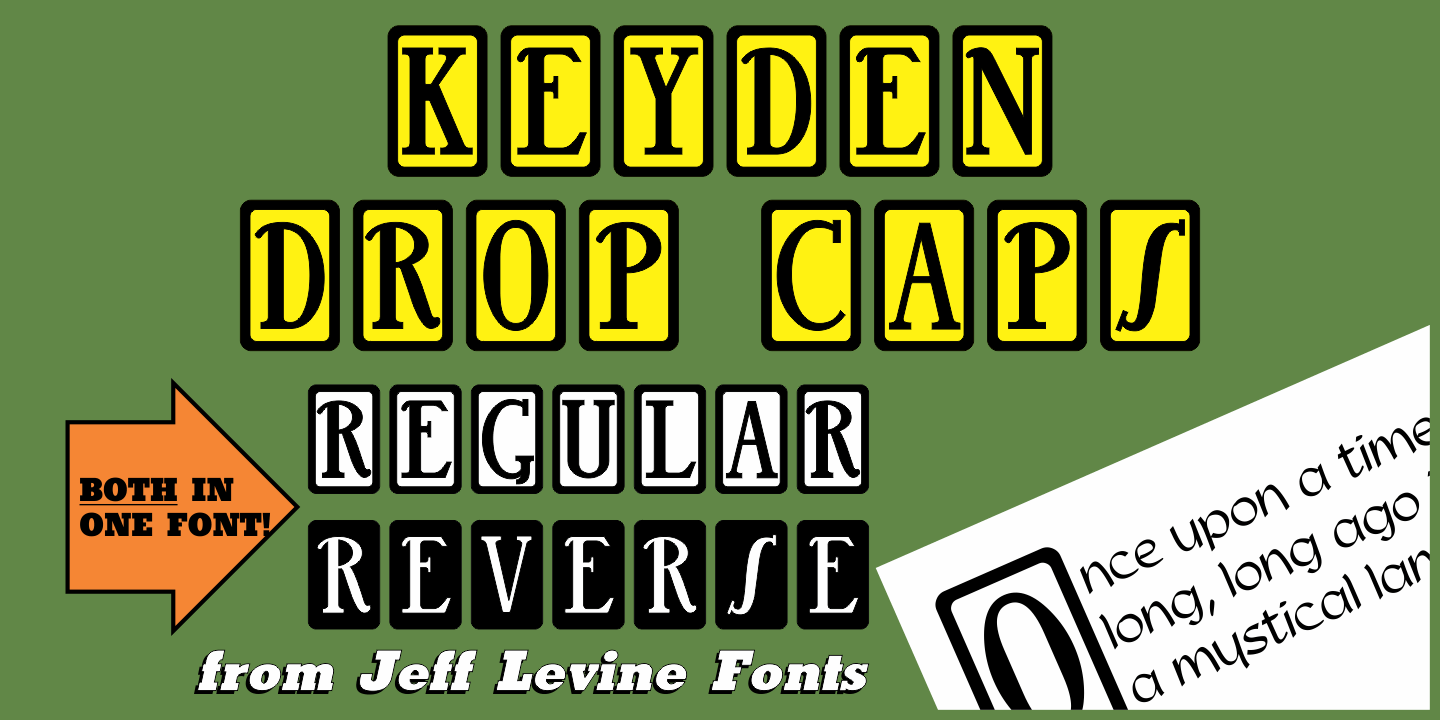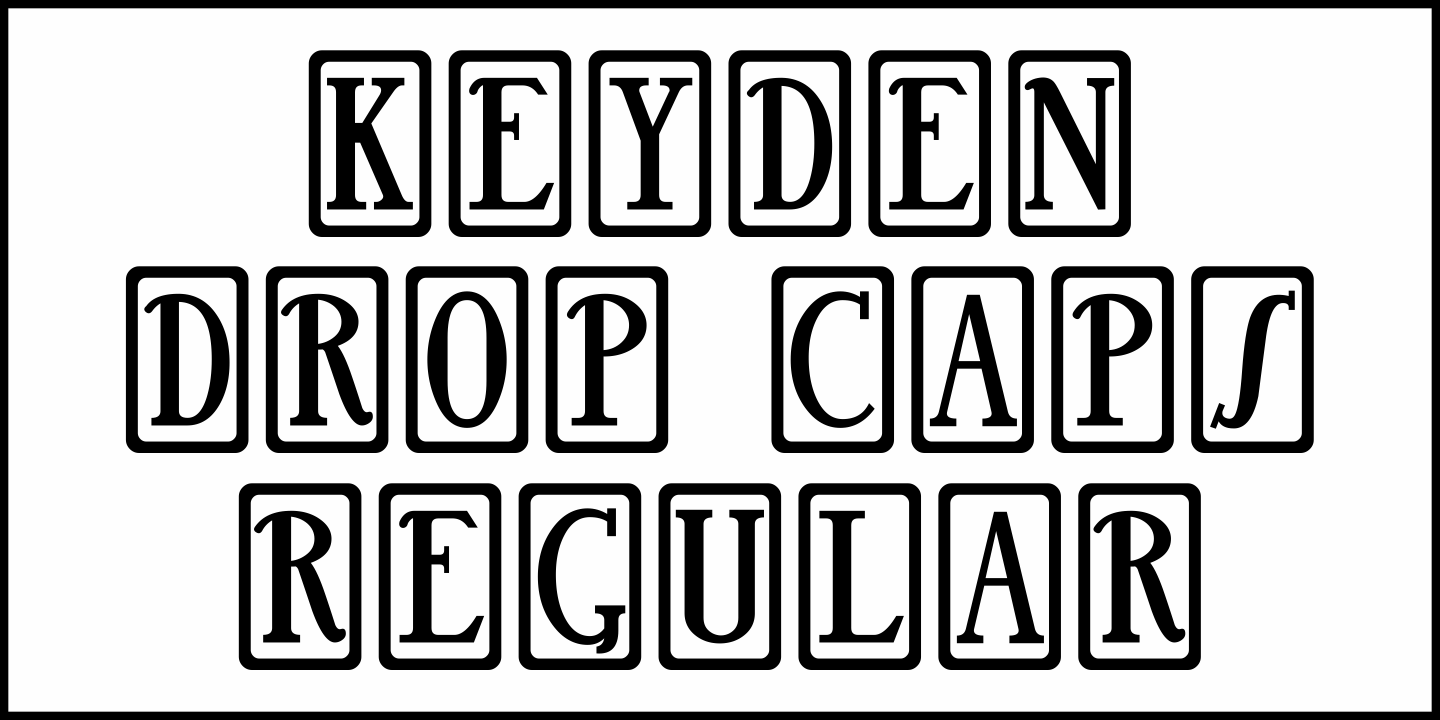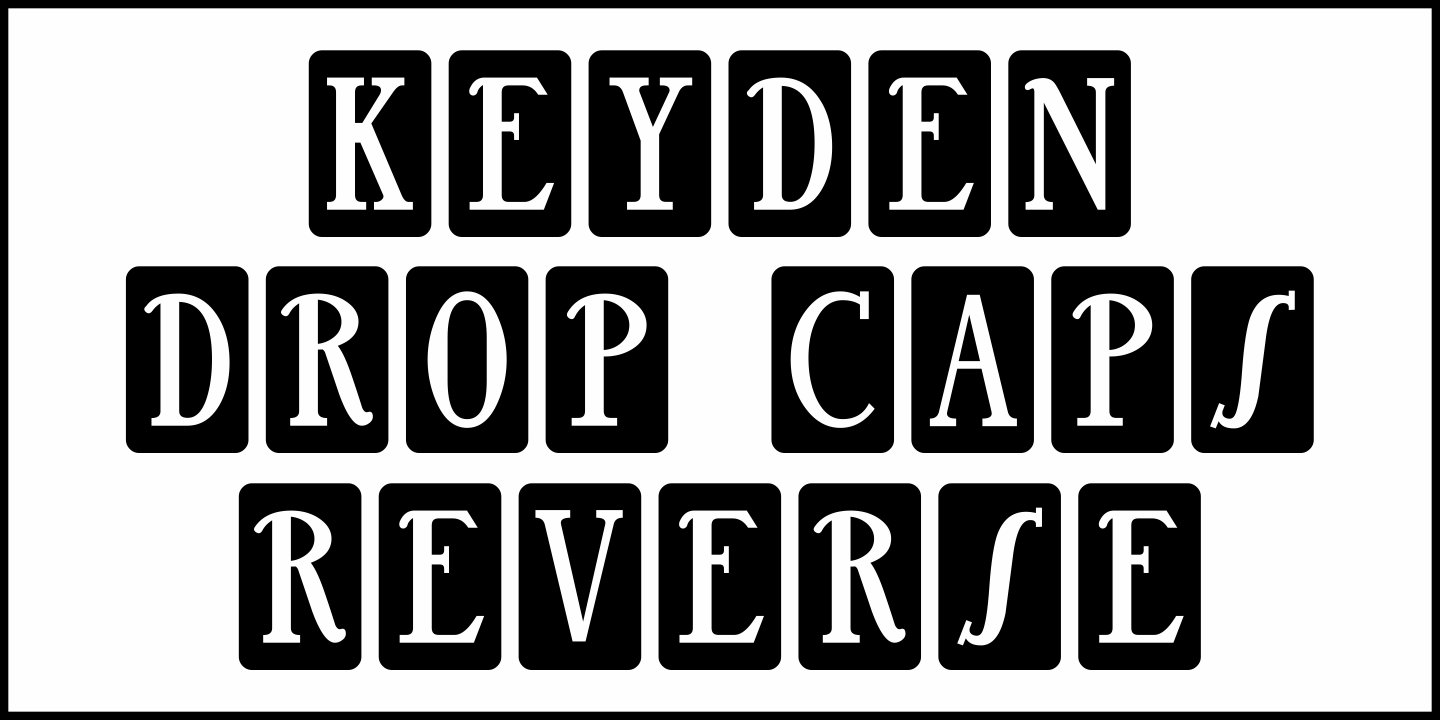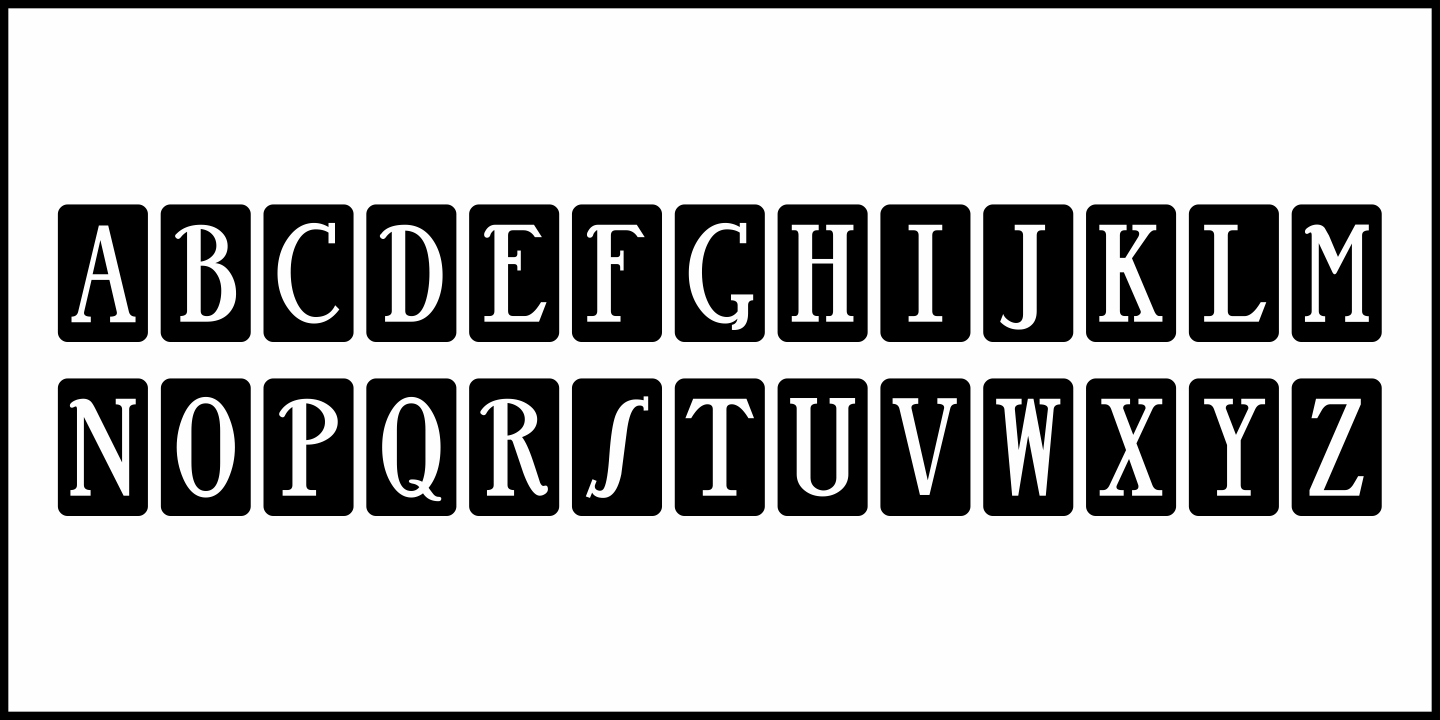
Keyden Drop Caps
A set of slab serif framed capitals is displayed in the 1906 edition of the Keystone Type Foundry specimen book as “John Alden Initials”.
Digitally redrawn as Keyden Drop Caps JNL, regular and reverse versions are available in one font file. Upper case keys contain the regular version, lower case keys have the reverse version. Blanks frames for each are on the parenthesis keys.
The font’s name is a hybrid of both ‘Keystone’ and ‘Alden’.
These vintage letters can easily be used as drop caps, monogram initials or for short novelty titles or headlines. Choose from either regular or oblique for your next print project.